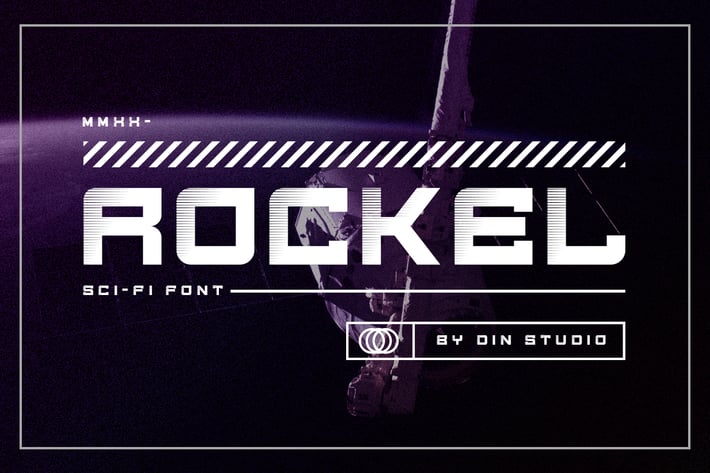
Rockel - Display Font
Din-Studio
Rockel is a bold and authentic display font. It suitable for your any project that needs the outer space touch. And the font also suitable for branding project, t-shirt print and many more.
- Accents (Multilingual characters)